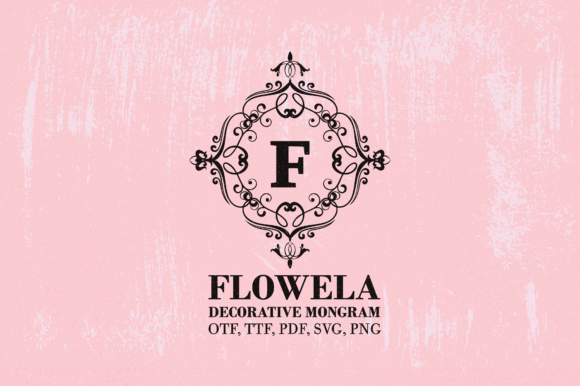
Introducing Flowela Font: The Epitome of Elegance and Sophistication
Are you a designer, crafter, or creative enthusiast looking for a font that exudes elegance, sophistication, and romance? Look no further than Flowela Font, an incredibly delicate and detailed decorative font that is sure to captivate your audience. With its ravishing style and versatility, Flowela is the perfect choice for creating stunning wedding invitations, beautiful stationery art, eye-catching social media posts, and much more.
The Beauty of Flowela Font
Flowela Font is a masterpiece of typographic design, boasting intricate details and a delicate aesthetic that is sure to leave a lasting impression. Its elegant curves, refined lines, and ornate flourishes make it an ideal choice for designs that require a touch of sophistication and glamour. Whether you’re creating wedding invitations, branding materials, or social media graphics, Flowela Font is sure to elevate your design to new heights.
What Makes Flowela Font So Special?
- Delicate and Detailed: Flowela Font features intricate details and delicate lines that give it a unique and refined look.
- Elegant and Sophisticated: Its elegant curves and refined lines make it perfect for designs that require a touch of sophistication and glamour.
- Versatile: Flowela Font can be used for a wide range of design projects, from wedding invitations and stationery art to social media posts and branding materials.
- Romantic: Its ravishing style and delicate aesthetic make it an ideal choice for wedding-related designs and romantic projects.
Uses for Flowela Font
Flowela Font is an incredibly versatile font that can be used for a wide range of design projects, including:
- Wedding Invitations: Create stunning wedding invitations that set the tone for a beautiful and elegant wedding.
- Stationery Art: Design beautiful stationery art, including greeting cards, thank-you cards, and more.
- Social Media Posts: Create eye-catching social media posts that are sure to grab the attention of your audience.
- Branding Materials: Use Flowela Font to create elegant and sophisticated branding materials, including logos, business cards, and more.
Tips for Using Flowela Font
To get the most out of Flowela Font, here are a few tips to keep in mind:
- Use it sparingly: Due to its intricate details and delicate aesthetic, it’s best to use Flowela Font sparingly to avoid overwhelming your design.
- Pair it with a simple font: Pair Flowela Font with a simple font to create a beautiful contrast and make your design stand out.
- Experiment with colors: Flowela Font looks stunning in a variety of colors, so don’t be afraid to experiment and find the perfect color scheme for your design.
Flowela Font is an incredibly delicate and detailed decorative font that is sure to captivate your audience. With its ravishing style, elegance, and sophistication, it’s the perfect choice for designers, crafters, and creative enthusiasts looking to create stunning wedding invitations, beautiful stationery art, eye-catching social media posts, and much more. So why wait? Fall for Flowela Font’s beauty and use it to elevate your designs to new heights.